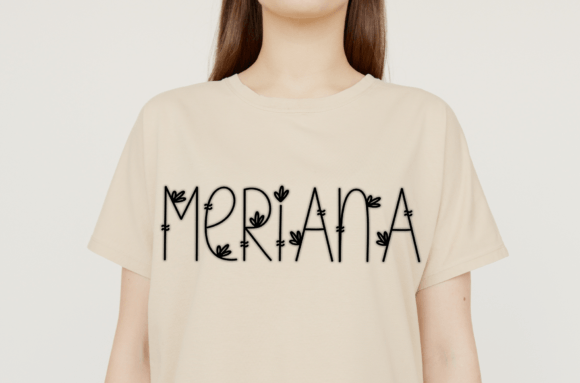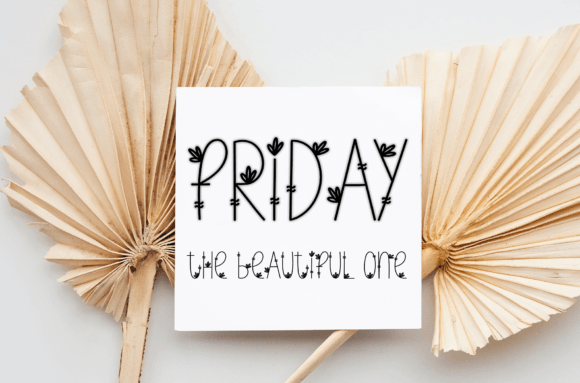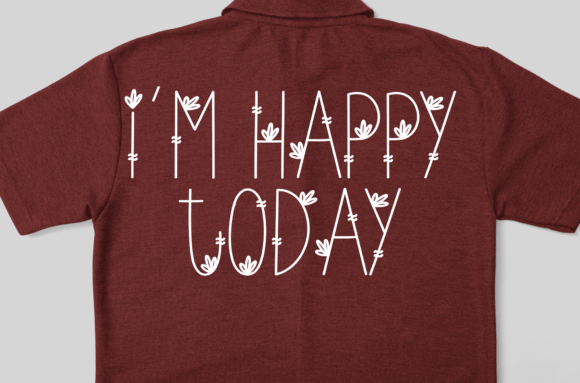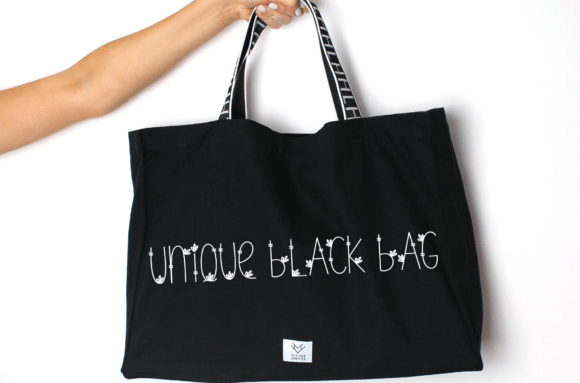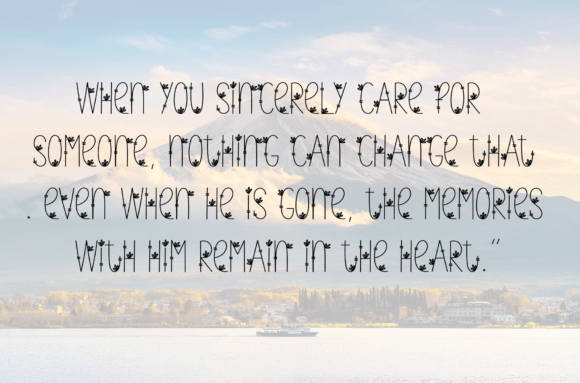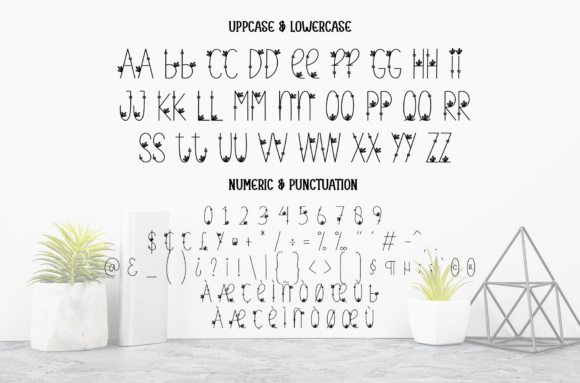
The Sweet Charm of Decoration Font: A Designer’s Delight
I’ll never forget the time I was working on a wedding invitation project, and my client asked me to add a touch of whimsy to the design. I had been searching for the perfect font for hours, but nothing seemed quite right. That’s when I stumbled upon Decoration Font, a sweet and friendly handwritten display font that instantly captured the playful, romantic essence of the occasion. ✨
- ✨ Cute and Fun: Decoration Font is perfect for adding a playful touch to any design project, from wedding invitations to social media graphics.
- ✅ Elegant yet Informal: This font strikes the perfect balance between elegance and informality, making it suitable for a wide range of design applications.
- 💕 Emotional Connection: The font’s sweet and friendly personality helps create an emotional connection with your audience, making your designs more relatable and engaging.
While Decoration Font is an excellent choice for many design projects, there are a few quirks to be aware of: 🤔
- ⚠️ Limited Use in Small Sizes: Due to its intricate design, Decoration Font may not be the best choice for small font sizes or body text.
- ⚠️ Occasional Kerning Issues: As with many script fonts, you may encounter occasional kerning issues, particularly when using the font in combination with other typefaces.
The Designer Inspiration Behind Decoration Font
Decoration Font was designed with the intention of creating a sweet and friendly handwritten display font that would bring joy and playfulness to design projects. The font’s creator drew inspiration from classic script fonts, combined with modern elements to create a unique and charming typeface.
Q: What type of projects is Decoration Font best suited for?
A: Decoration Font is ideal for wedding invitations, social media graphics, cards, and any other design project that requires a playful, elegant touch.
Q: Is Decoration Font available in different font styles?
A: Yes, Decoration Font comes with various font styles, including regular, italic, and bold, allowing you to experiment with different typography options.